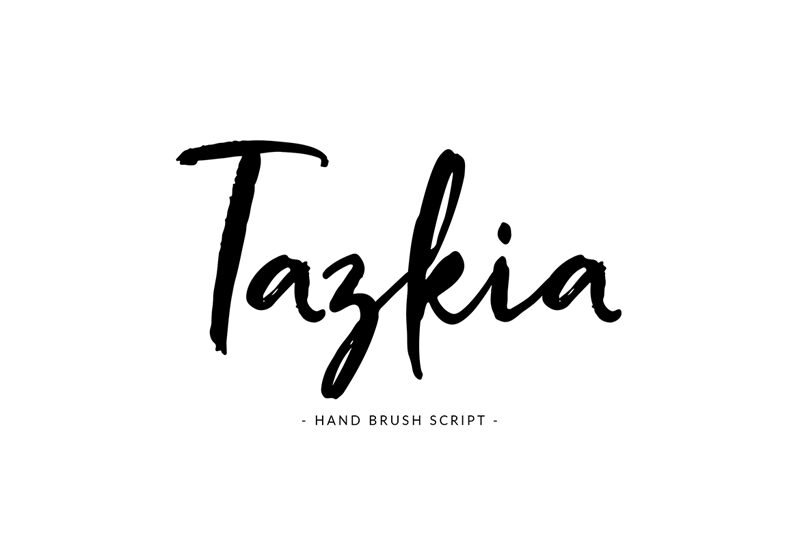
Looking for a font that will make your designs stand out? Look no further than Tazkia, the hard brush typeface designed by Wahyu Andi Prasetiyo. With its semi-light weight, this font adds just the right amount of emphasis without overpowering your message. Whether you're designing logos, flyers, or social media graphics, Tazkia is suitable for a wide range of projects. Its bold strokes and rough texture give your designs an edgy feel that's perfect for fashion or music-related projects. Get creative with Tazkia and watch your designs come to life!
Tazkia